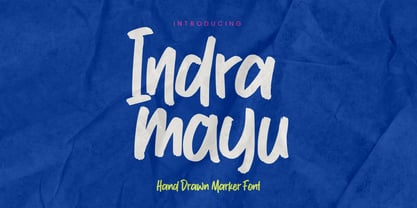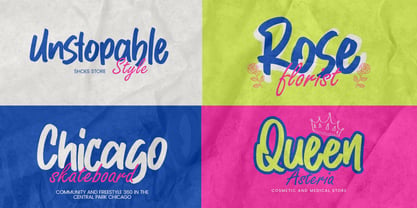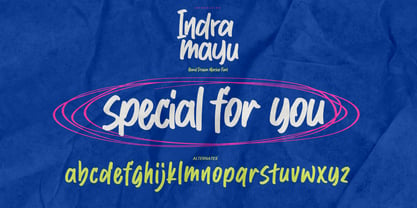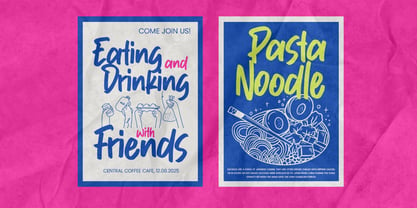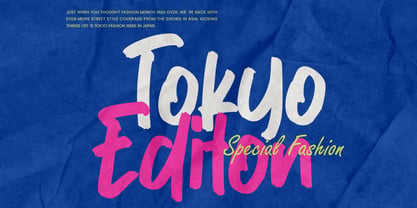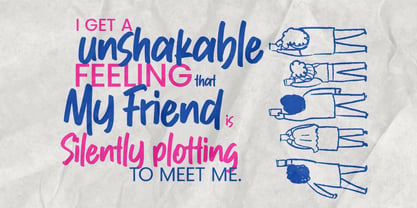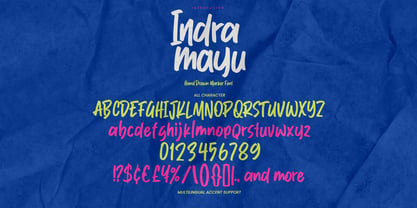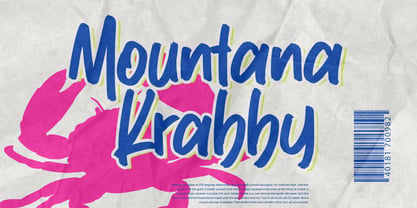
Indramayu
par Gassstype
La famille de polices Indramayu a été conçue par Abdul Malik Wisnu et publiée par Gassstype. Indramayu contient 1 styles. En savoir plus sur cette famille
Introducing Indramayu, a bold hand-drawn marker font crafted with an authentic, energetic, and expressive style. Its rough edges and natural strokes bring a handmade feel to every word, making it perfect for posters, branding, packaging, social media designs, headlines, and creative projects that need a strong personal touch. Indramayu adds character, attitude, and a playful handcrafted vibe to your designs.
Concepteurs: Abdul Malik Wisnu
Fonderie: Gassstype